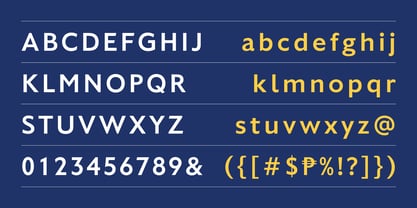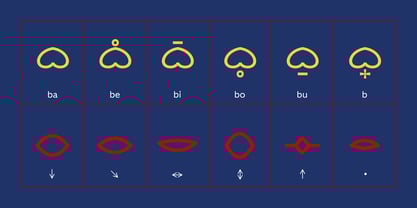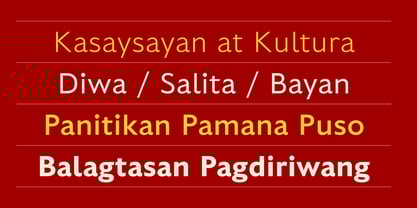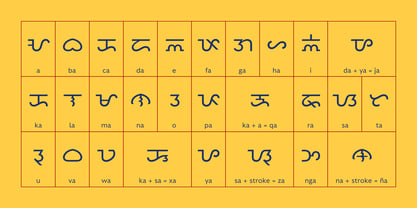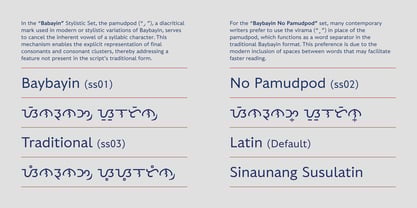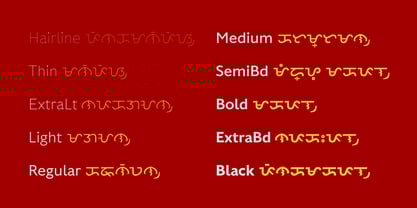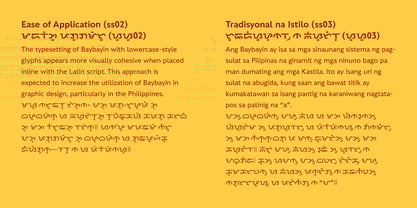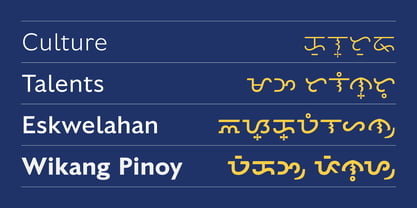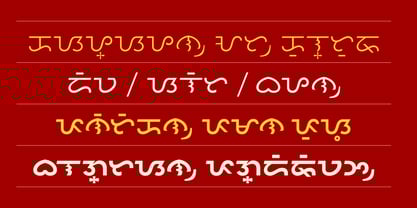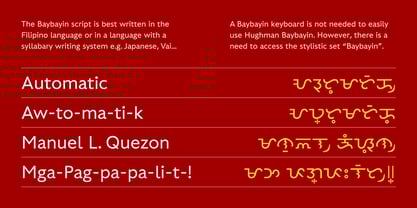
Hughman
by Hanken Design Co.
The Hughman Font Family was designed by Alfredo Marco Pradil and published by Hanken Design Co.. Hughman contains 10 styles and family package options. More about this family
Hughman is a modern humanist sans-serif typeface, named with a play on the word "human" to reflect its design philosophy centered on exceptional clarity and readability. Key features like its open letterforms, subtle stroke variation, and a tall x-height make it an excellent choice for diverse applications, from long-form body text to wayfinding signage and small user interface captions. A standout characteristic of Hughman is its built-in support for the traditional Filipino writing system, Baybayin, which is accessible through an OpenType feature. This addition makes it not only a highly functional font but also a culturally inclusive and significant design tool.